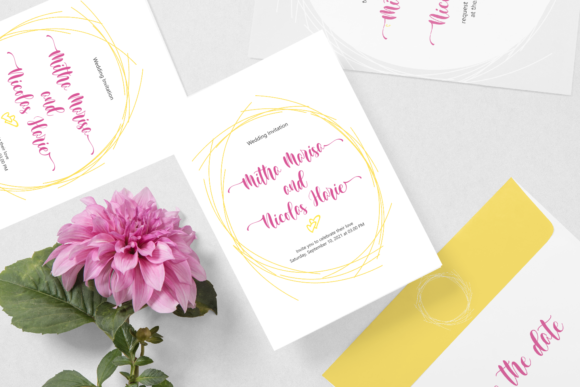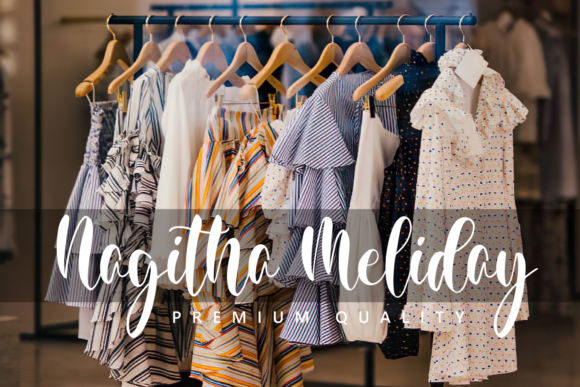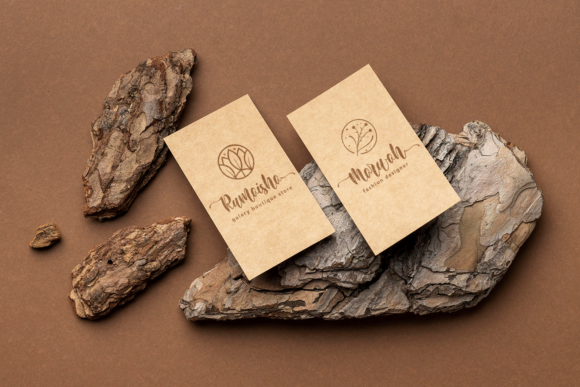
Introduction to Hello Molarine Font Font
Hello Molarine is a lovely and delicate script font that exudes elegance and class.
This font was particularly crafted for those who need a beautiful and refreshing look to their designs .